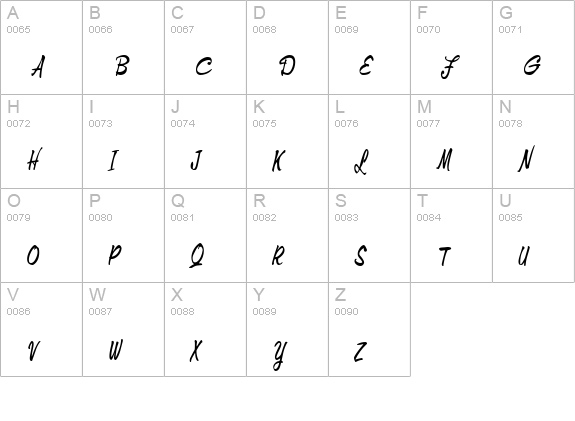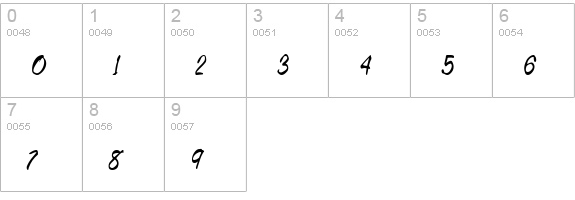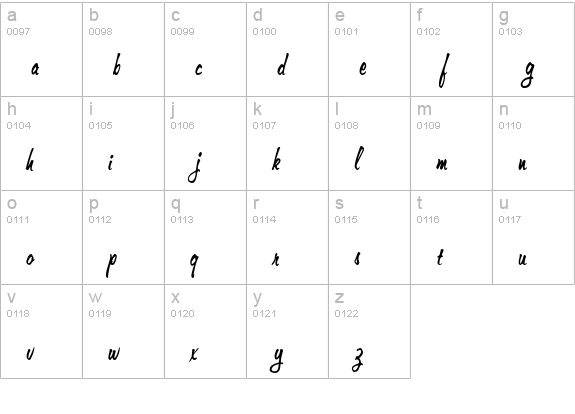
MemoCondensed Italic Font Details
MemoCondensed Italic is a distinctive, italic variant in the MemoCondensed typeface family \xE2\x80\x94 well suited to design and typography projects.
MemoCondensed Italic font is a sleek and modern typeface that exudes sophistication and elegance. Its slanted and condensed design adds a touch of flair to any project, making it perfect for use in branding, advertising, and editorial design. The italicized style of MemoCondensed Italic font brings a sense of dynamism and movement to text, making it stand out on the page. What's even better is that MemoCondensed Italic font is available for free download at FontsMarket.com. This means you can easily access this stylish font and incorporate it into your design projects without any cost. Whether you're working on a professional presentation, a creative poster, or a stylish website, MemoCondensed Italic font is sure to elevate your designs and leave a lasting impression. Download it today and add a touch of sophistication to your work!